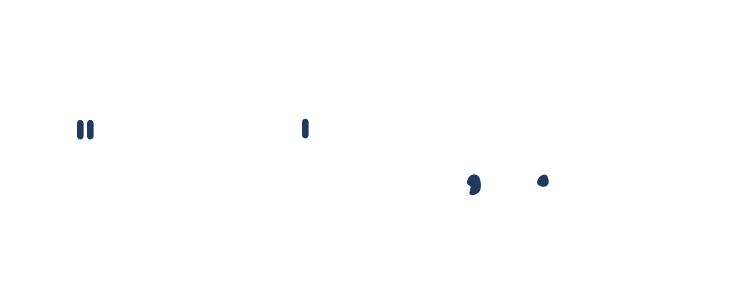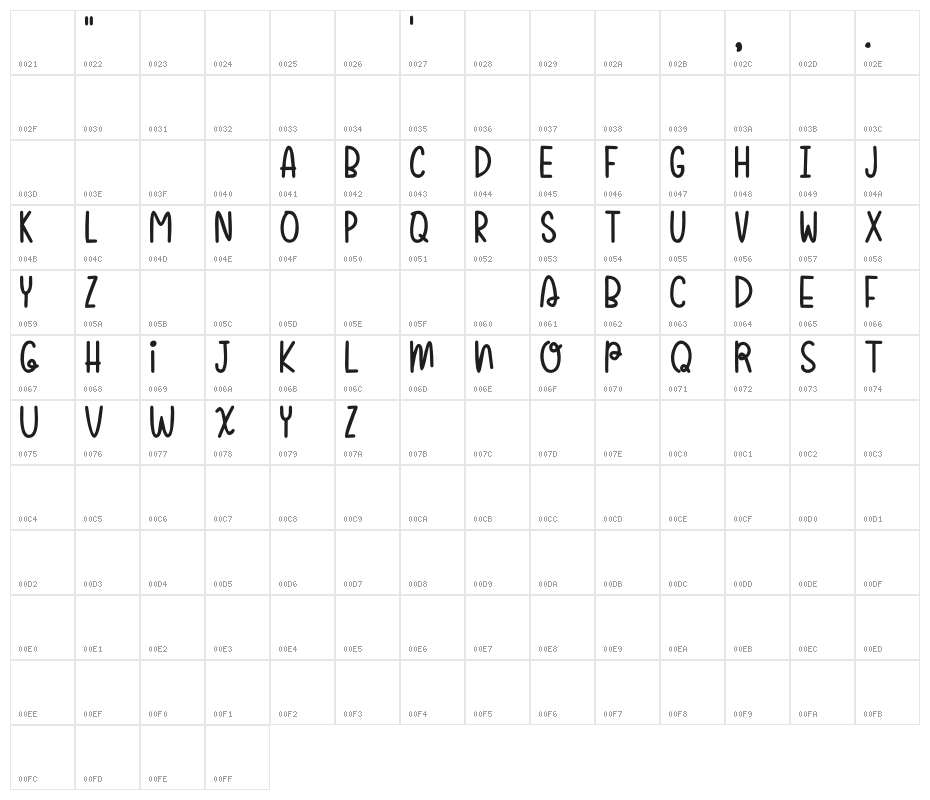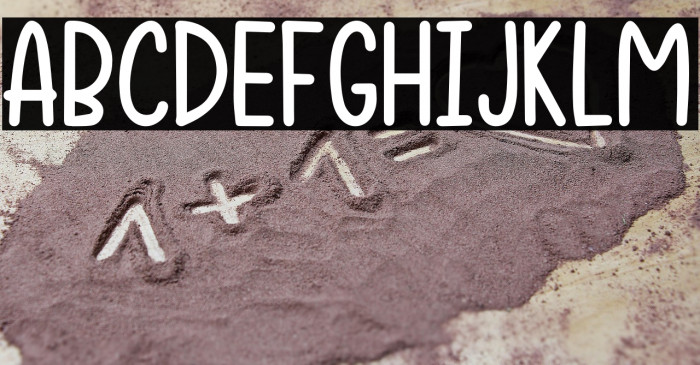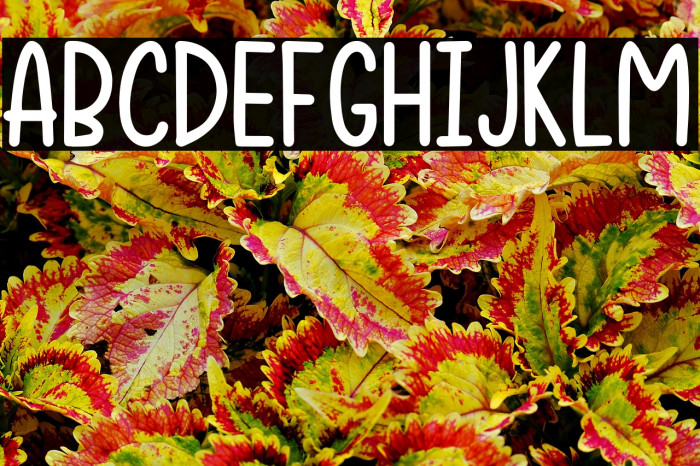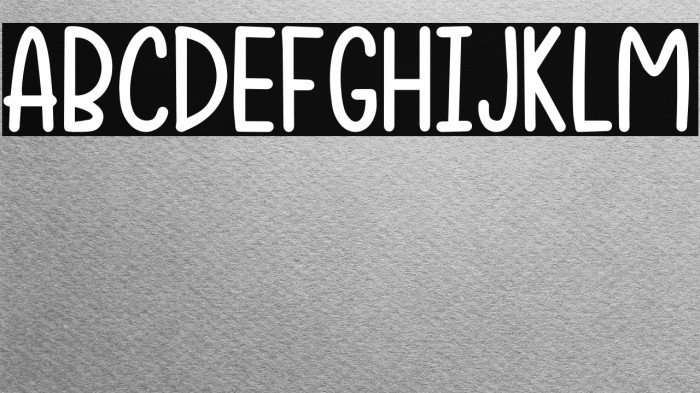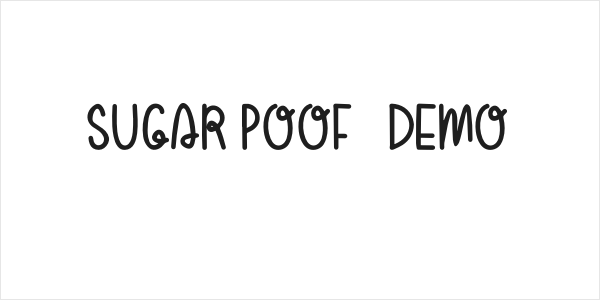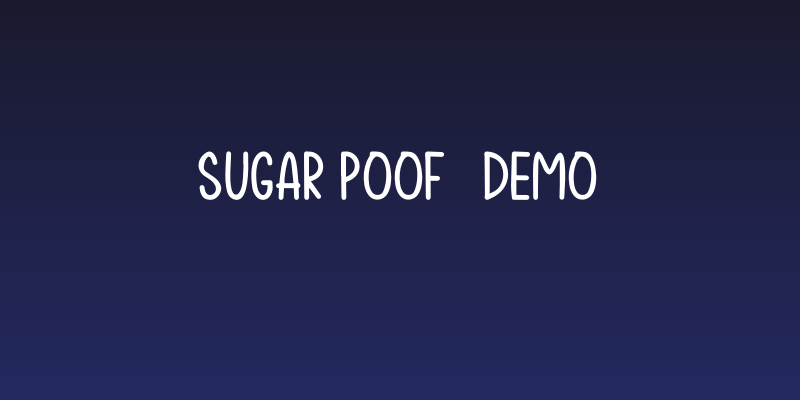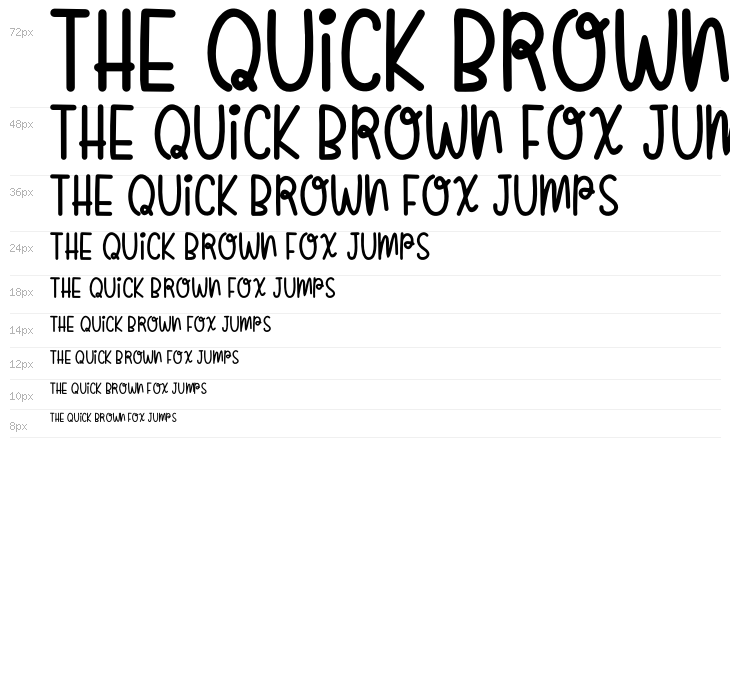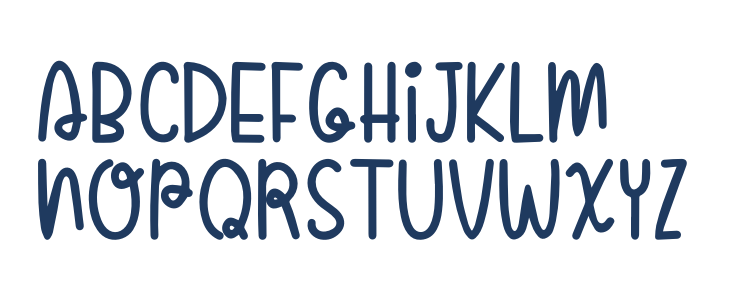
Sugar Poof-demo Font
Sugar Poof-demo Description
This playful and whimsical font features rounded, bubbly characters that exude a sense of fun and creativity. The letters are bold and slightly irregular, giving them a hand-drawn appearance that adds to their charm. The uppercase and lowercase letters maintain a consistent style, with smooth curves and a friendly demeanor. The font's unique personality makes it stand out, making it ideal for projects that require a touch of lightheartedness and joy. Its design is both approachable and versatile, suitable for a variety of creative applications.